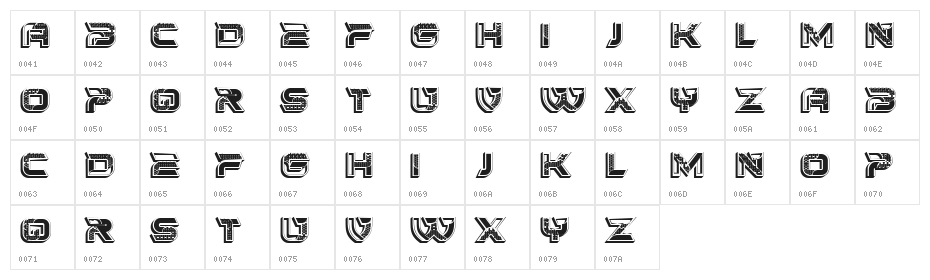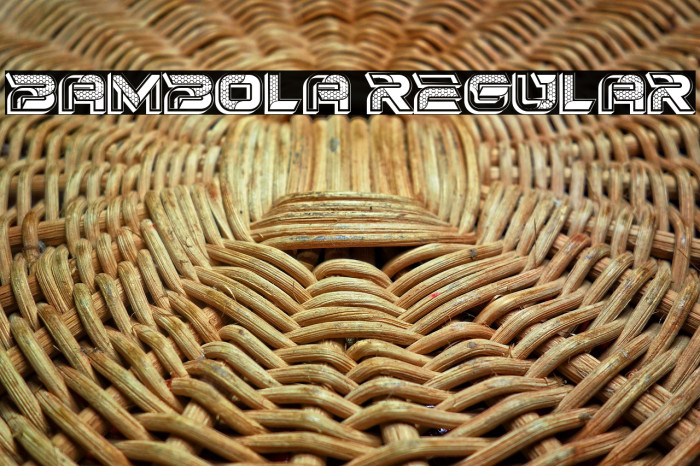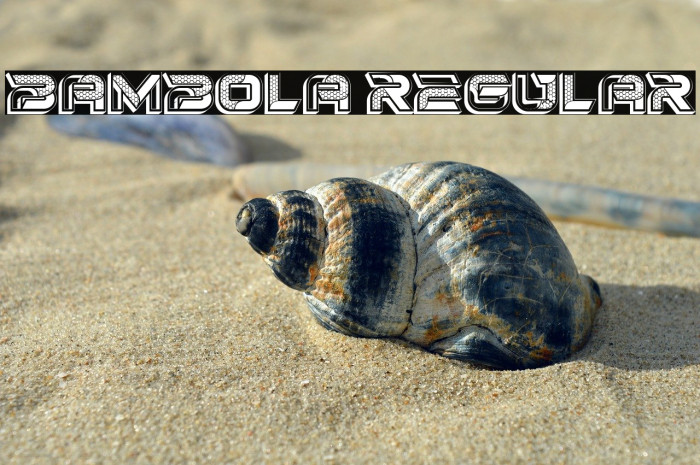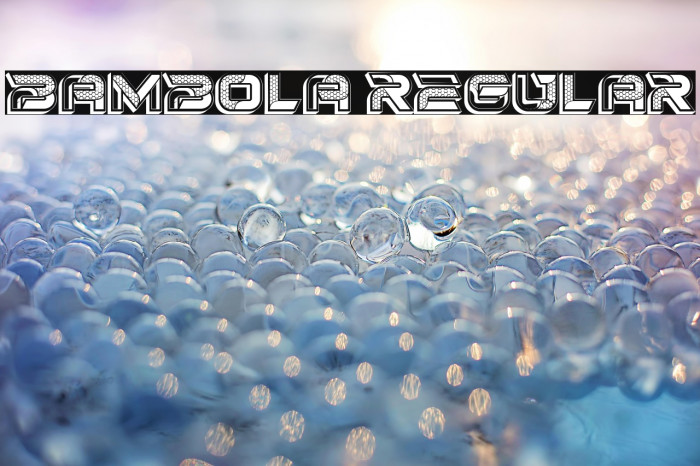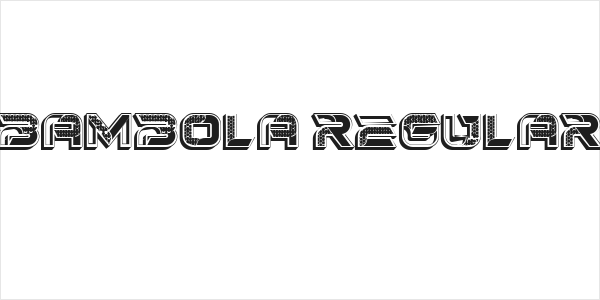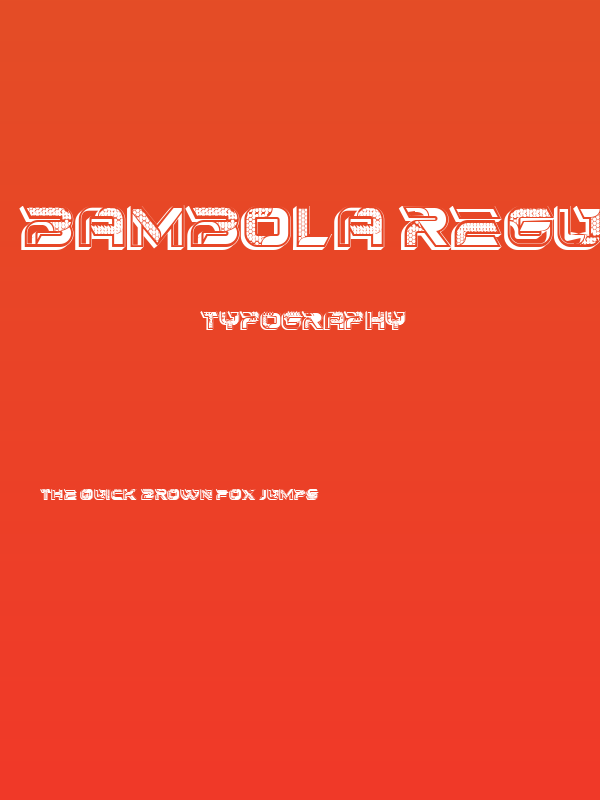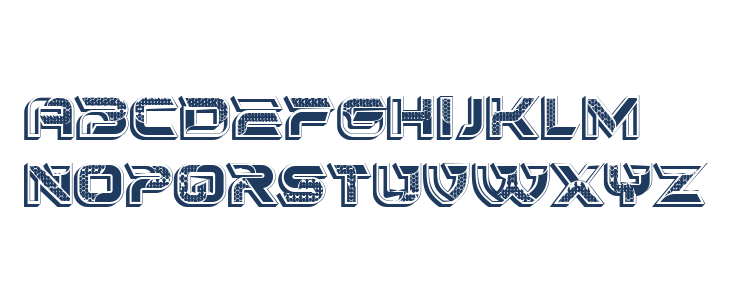
Bambola Regular Font
Bambola Regular Description
This font features a bold, decorative style with a unique, textured pattern within each letterform. The characters are outlined with a thick border, giving them a three-dimensional appearance. The design incorporates geometric elements and sharp angles, creating a modern and dynamic look. The uppercase letters are particularly striking, with intricate details that add depth and visual interest. This font is ideal for projects that require a strong, eye-catching display typeface.
| Proposed Projects | Ideal for posters, album covers, branding, and any project needing a standout display font. |